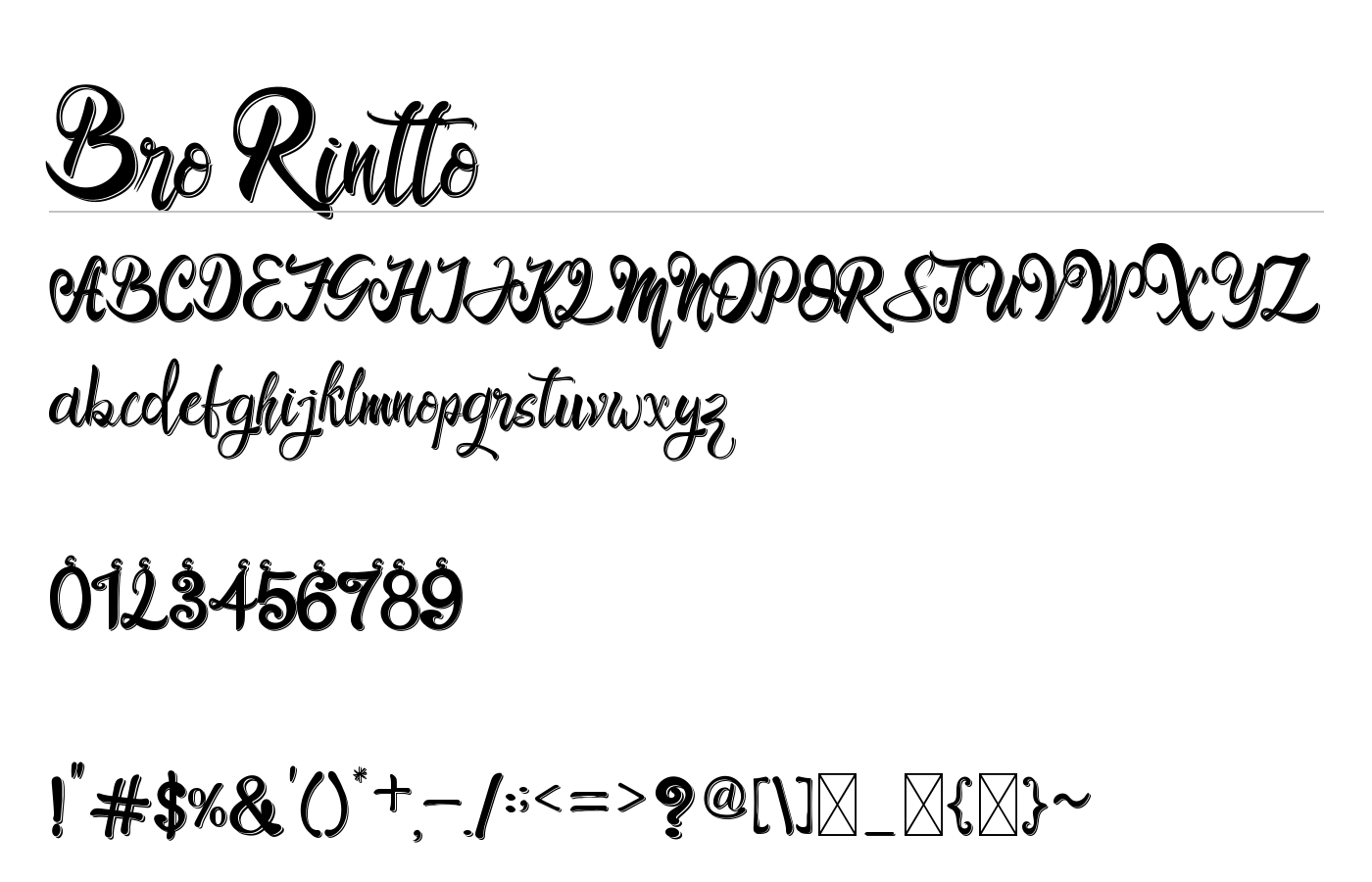
Bro Rintto is a bold, decorative script font with high contrast strokes and playful, swirling letterforms that combine a vintage charm with a modern flair. Its thick and thin lines, along with unique curls and loops, make it perfect for eye-catching headlines, logos, and branding that seek a lively yet elegant personality. This font works especially well in creative contexts like invitations, fashion brands, and posters where a stylish, dynamic impact is desired.
Bro Rintto Font
About Bro Rintto Font
| Font family | Bro Rintto Font |
| Designer | Arif Dwi |